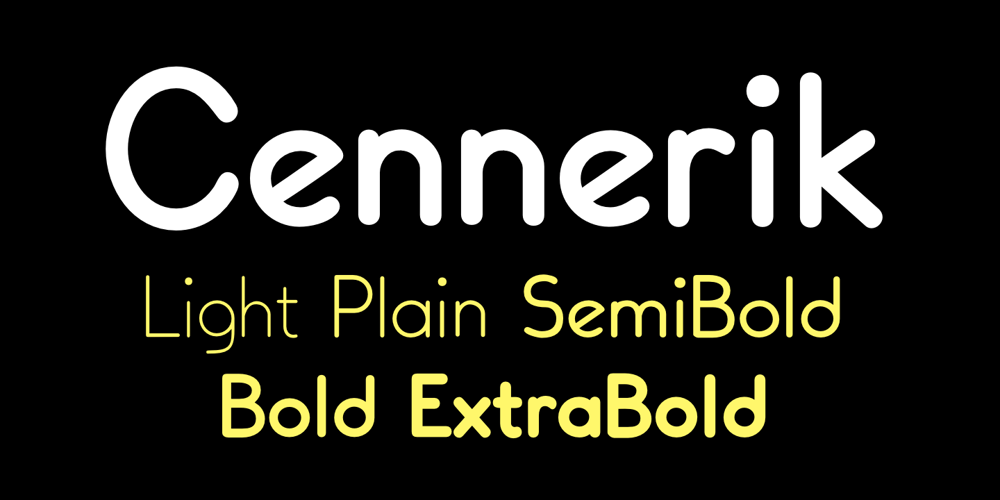
Cennerik
Cennerik font
Cennerik Font Family was designed by Robert Schenk and published by Ingrimayne Type. Cennerik contains 10 styles and family package options. Cennerik is a plain, sans-serif typeface with rounded ends. It comes in five weights: light, regular, semibold, bold, and extrabold and each weight has both upright and italics styles.It was originally designed in 1992 and has been updated several times since then, most recently in 2020.